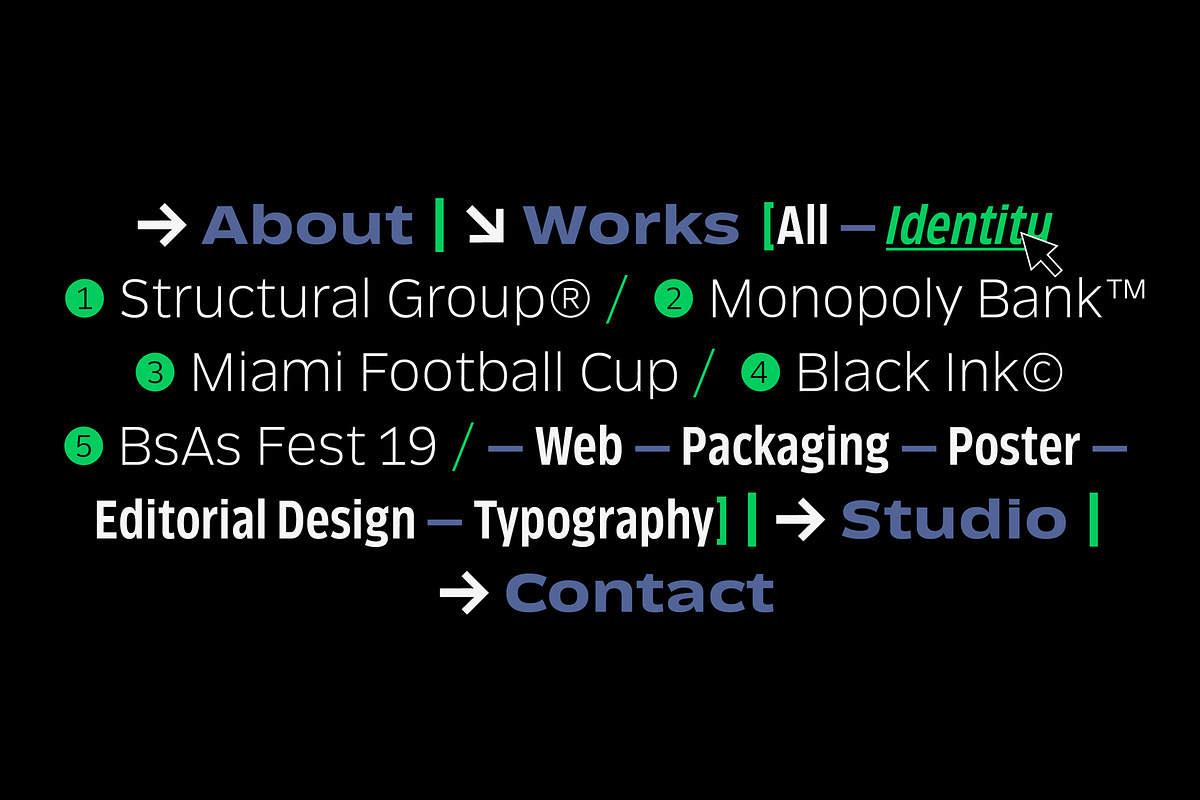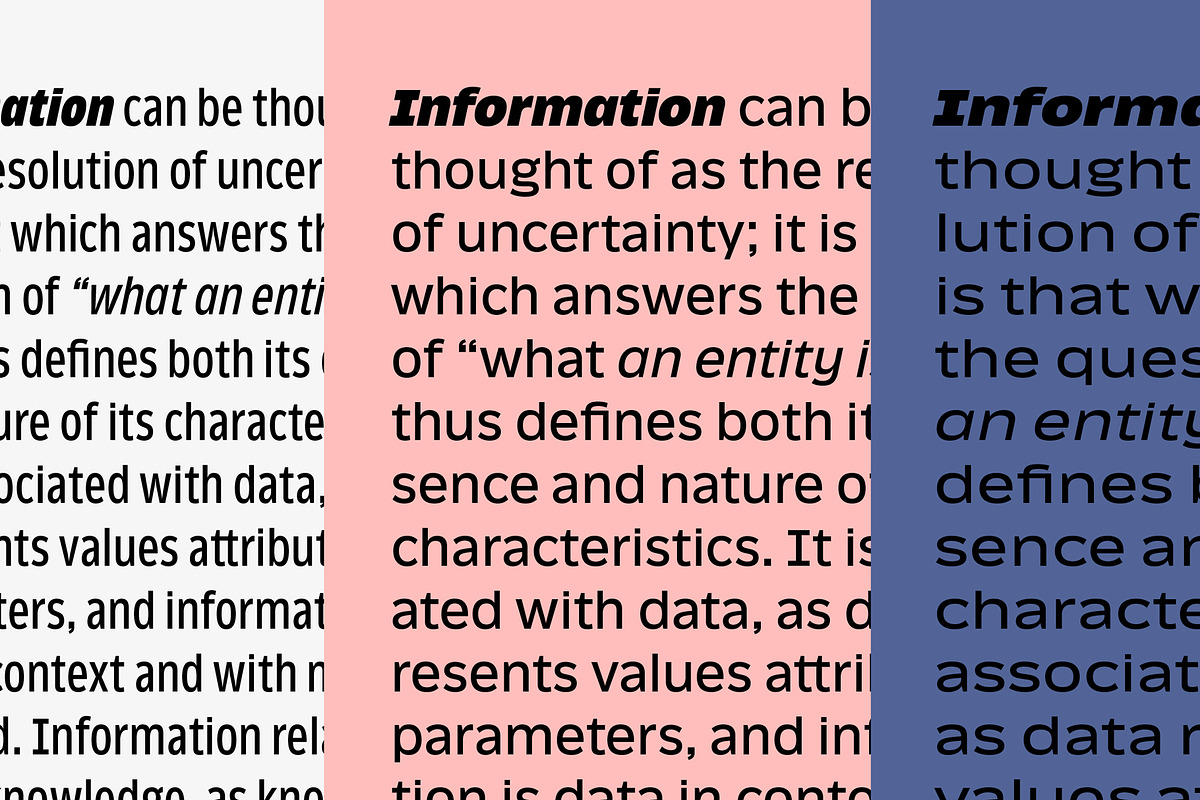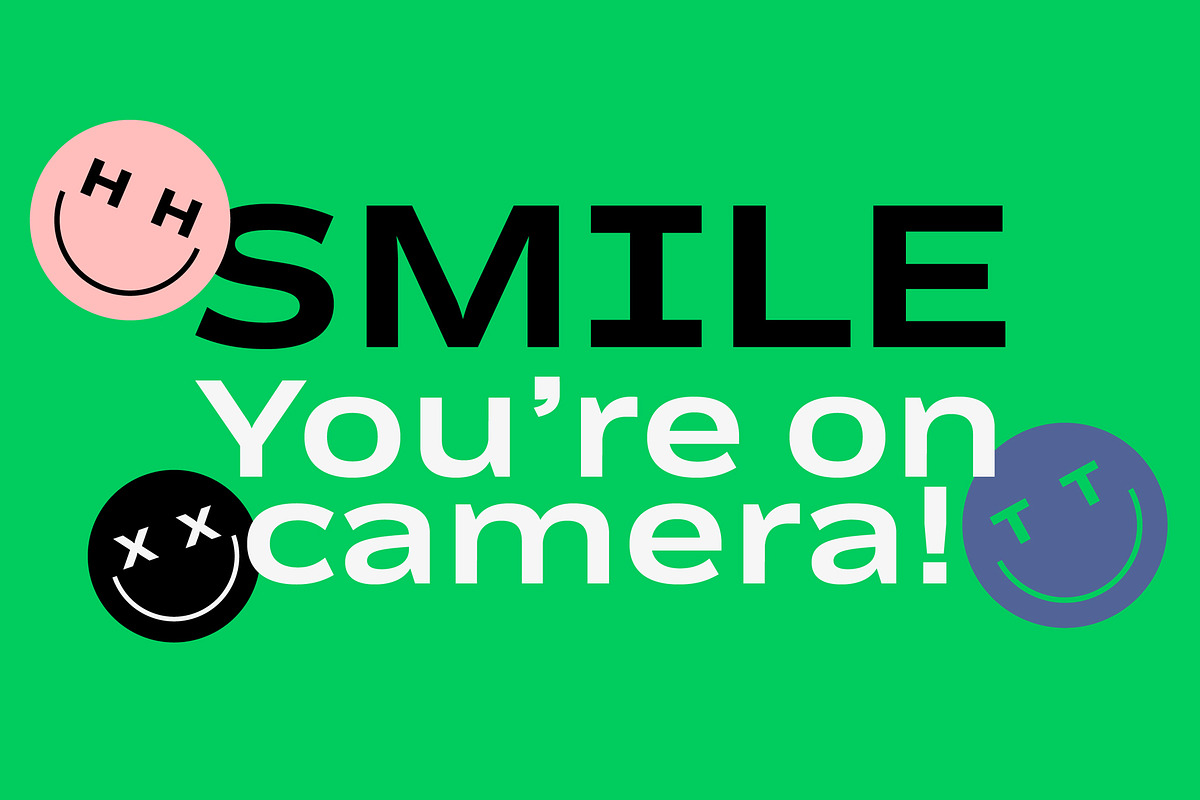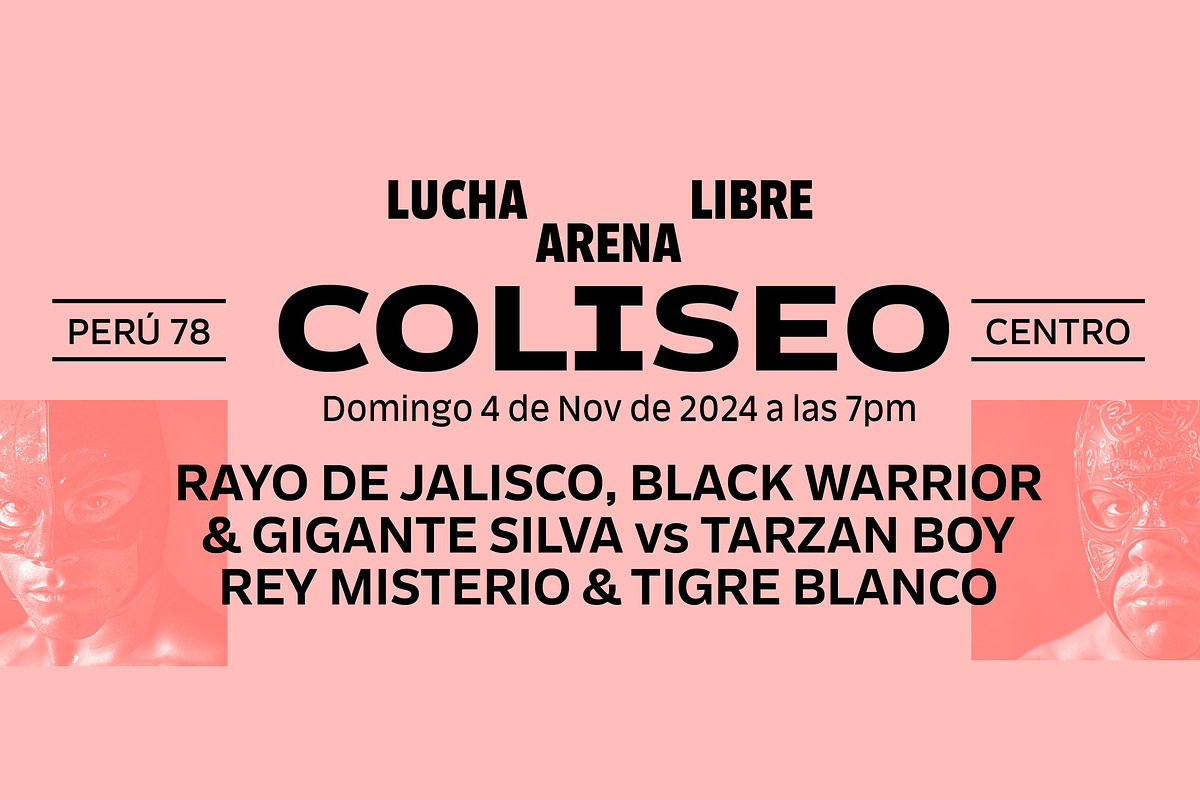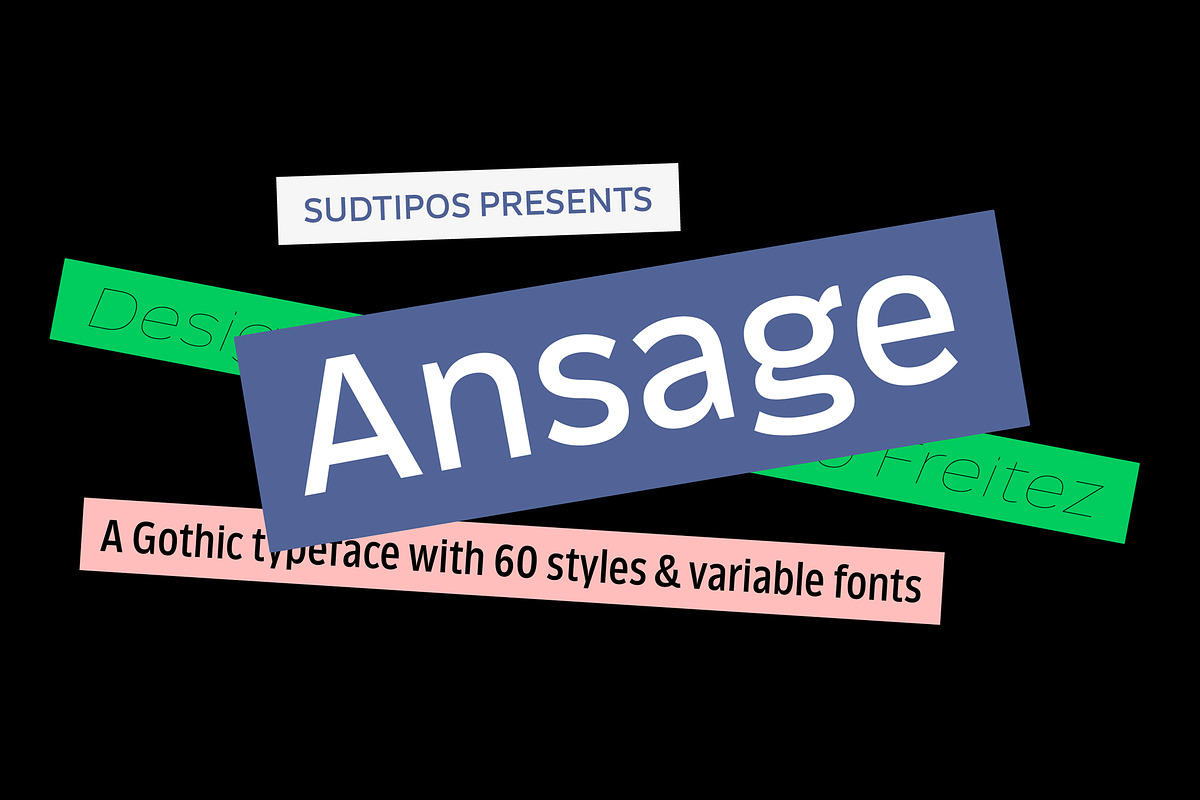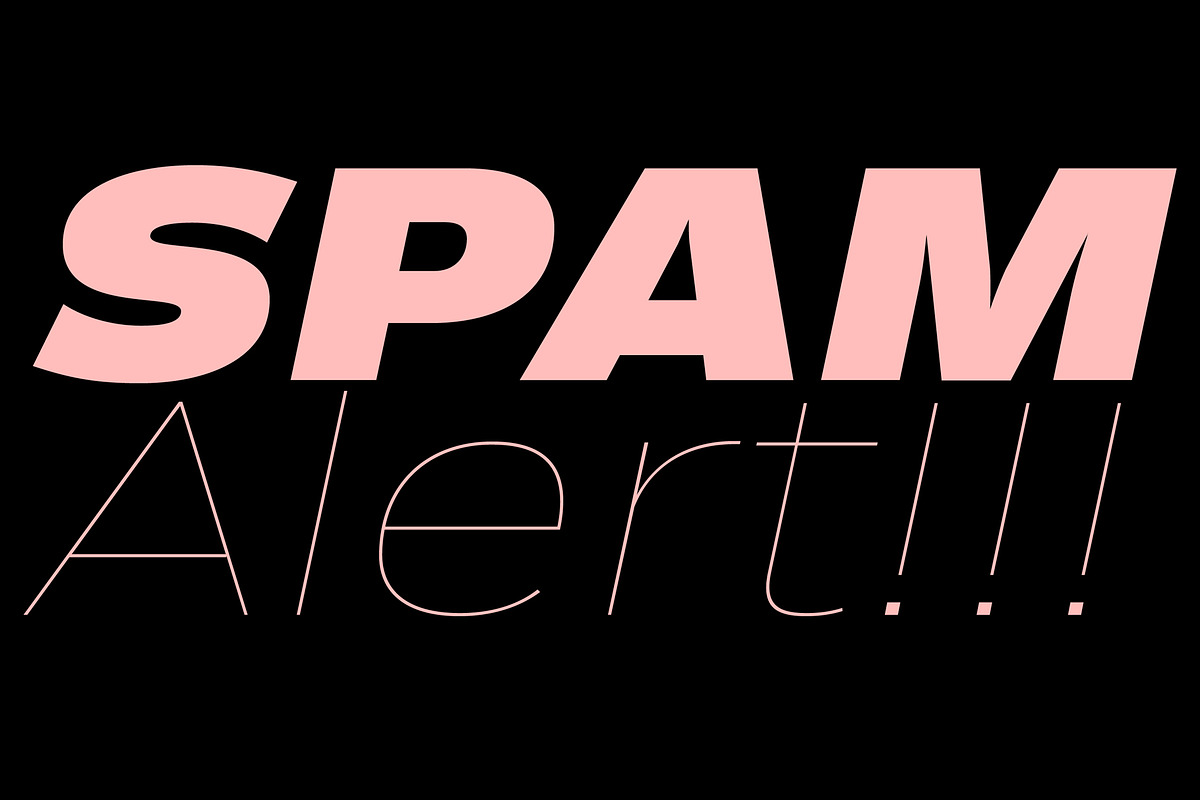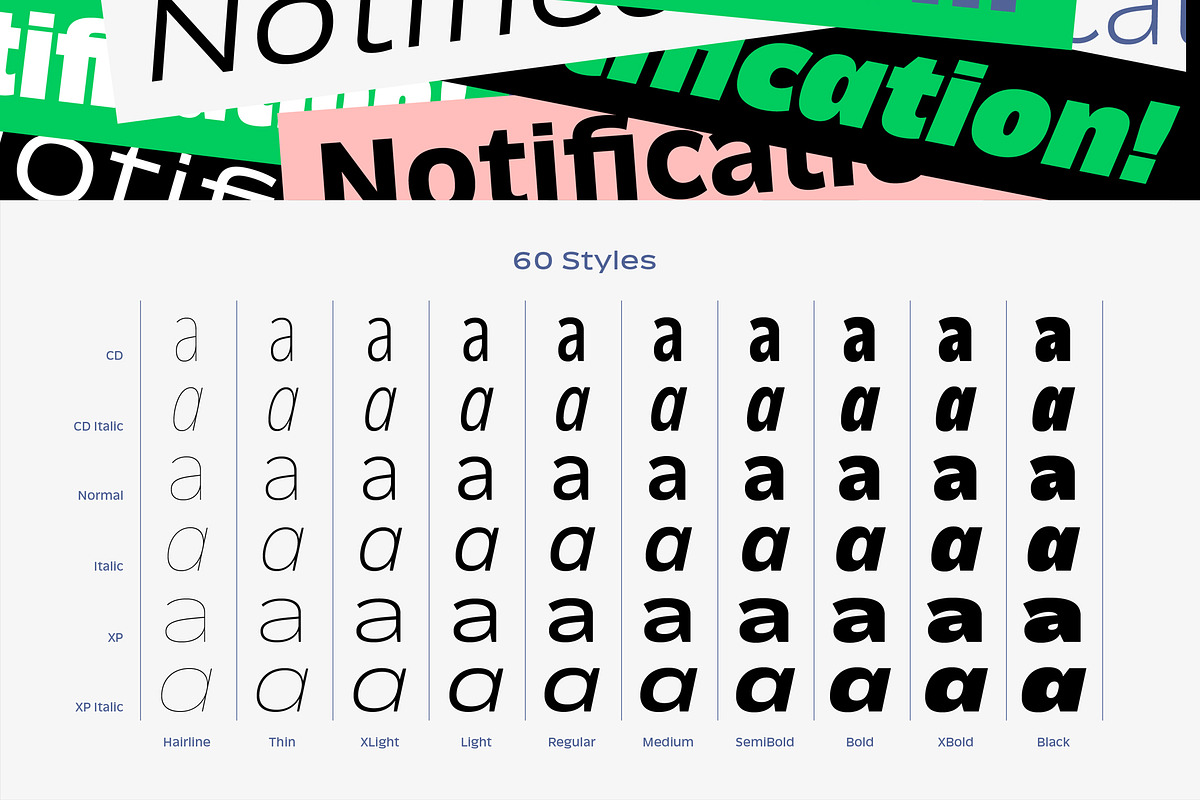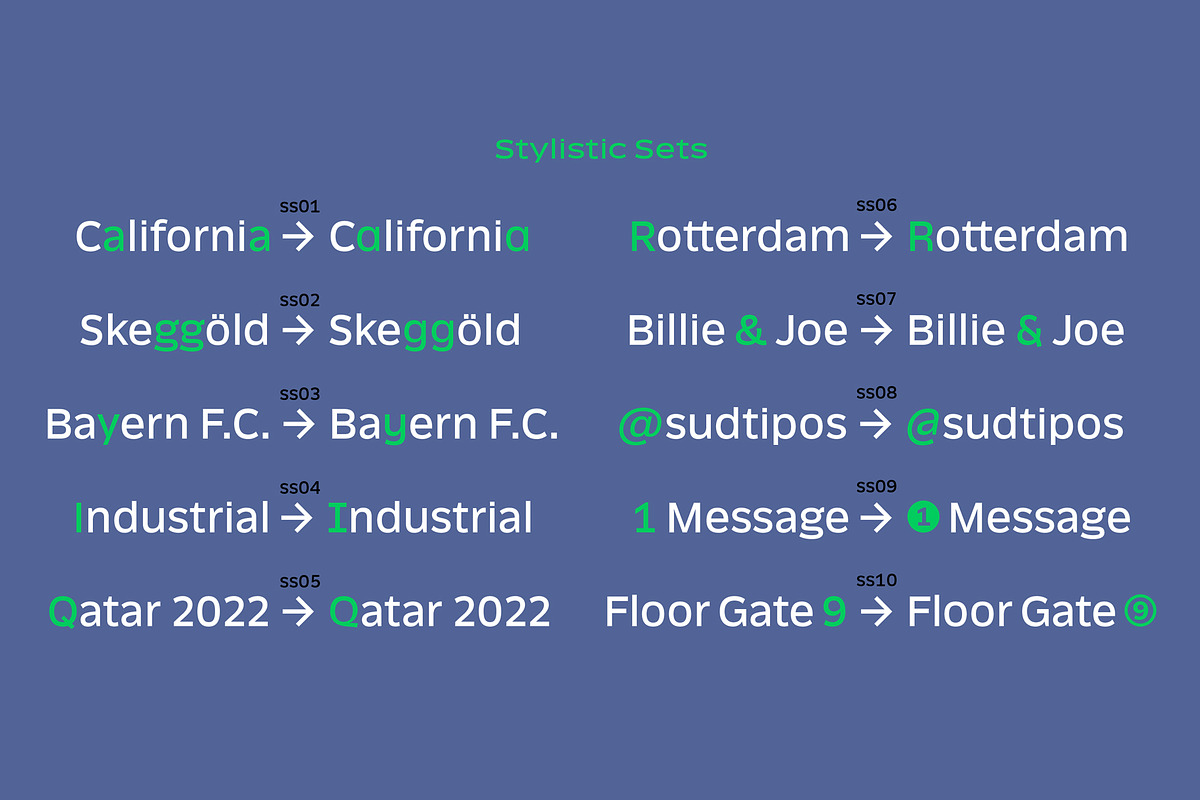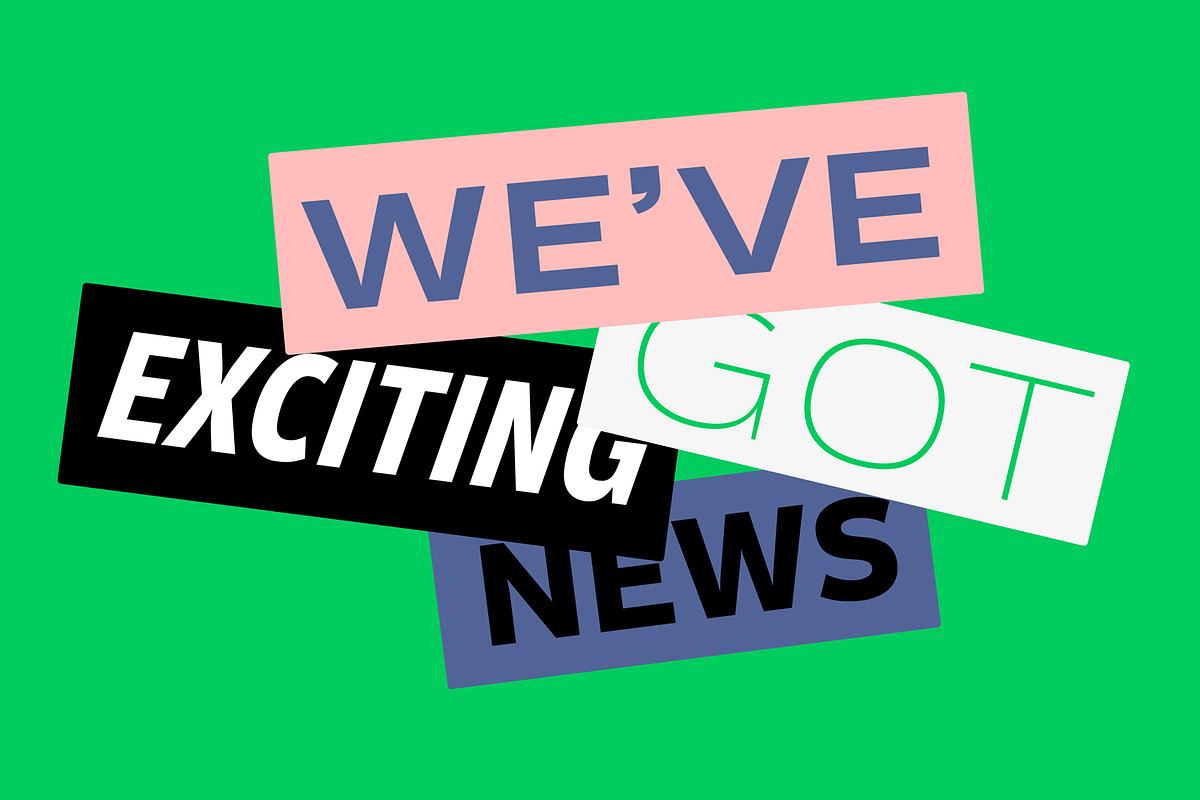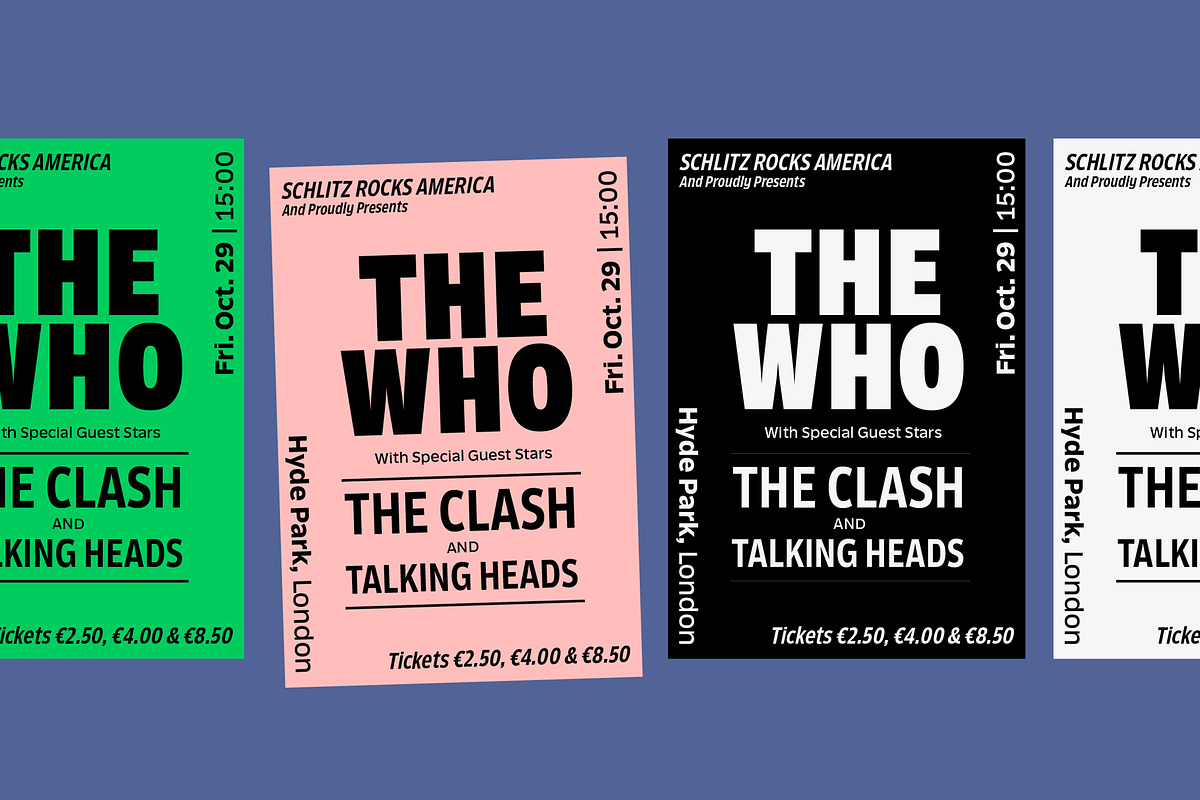
Ansage
Ansage does not claim to be neutral; it escapes from the rationalist sans with closed strokes and regular forms. Meaning Announcement in German, Ansage is versatile and communicates effectively across a broad range of media and formats such as branding, posters, websites, apps and headlines as well as compositions with little spacing.
Ansage is a sans serif font with a strong personality that emerges from an interest in and the study of a wide variety of typographic specimens for Gothic fonts from the nineteenth century. The design process behind Ansage brought about constant transformations in form; the result is a compact and robust font, with a large x-height, small ascenders and descenders, and open terminals that grow in expressiveness as it increases in weight.
It is available in 10 weights, ranging from Hairline to Black, and 3 widths – Condensed, Regular and Expanded – plus italics, which make a total of 60 perfect variables that combine and contrast each other. In addition, Ansage also includes multiple open-type functions such as alternative styles, Old Style Figures, Tabular Forms, fractions, case sensitive ligatures and more.